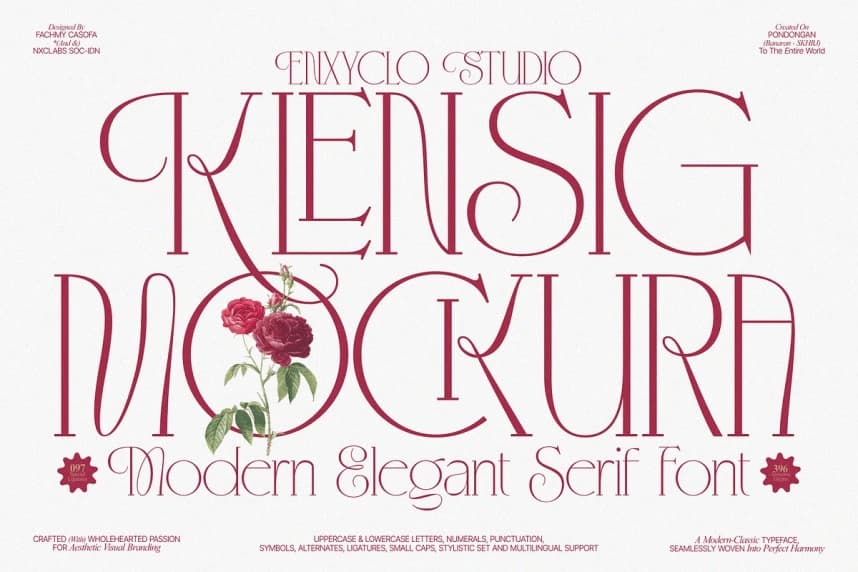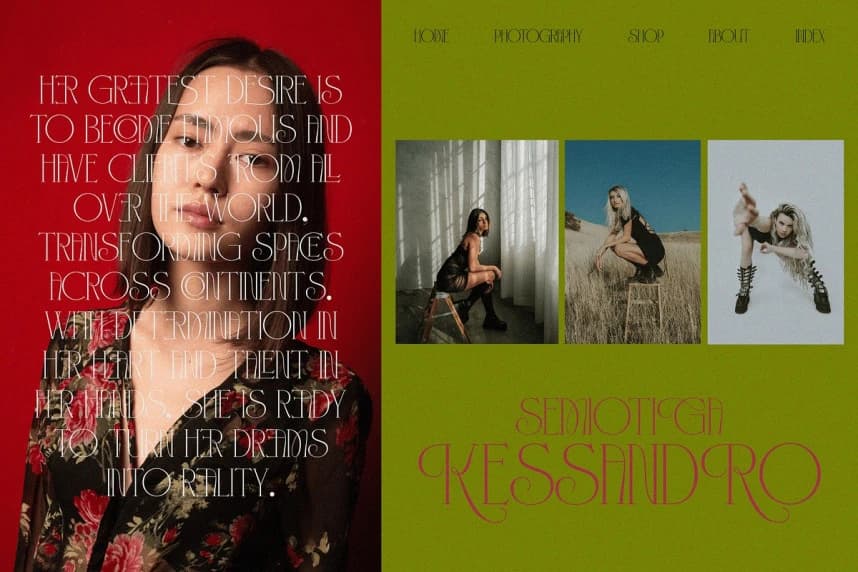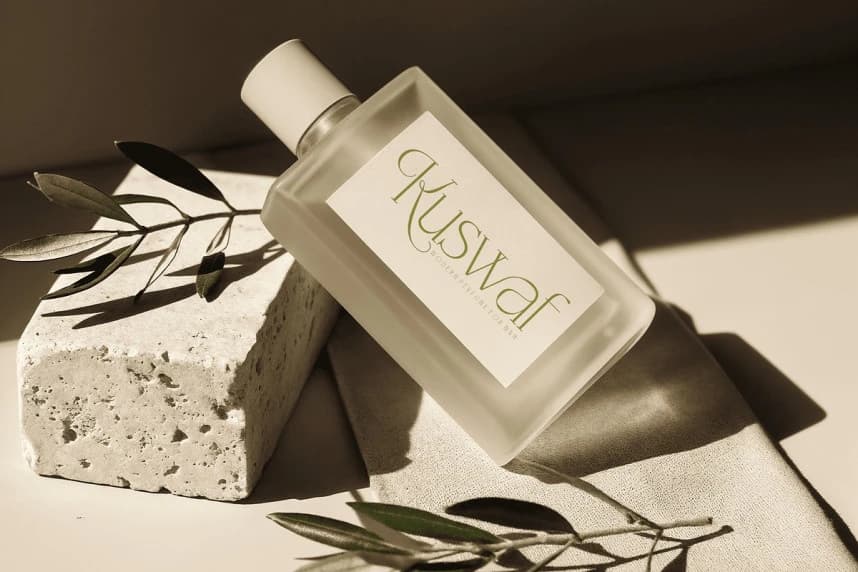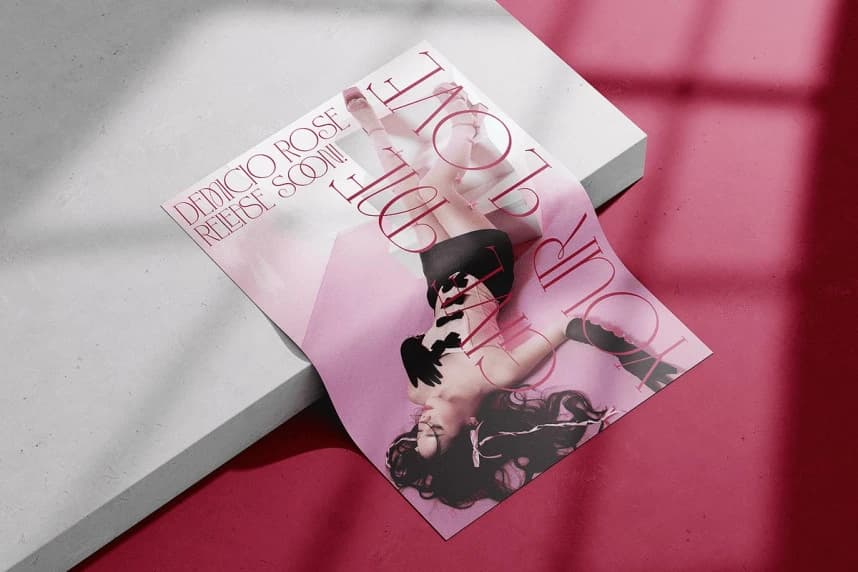
Klensig Mockura Font
KLENSIG MOCKURA Font is a modern luxury serif font crafted to express elegance, precision, and high-end sophistication. With its refined proportions, clean structure, and subtle ligature details, this typeface delivers a lavish